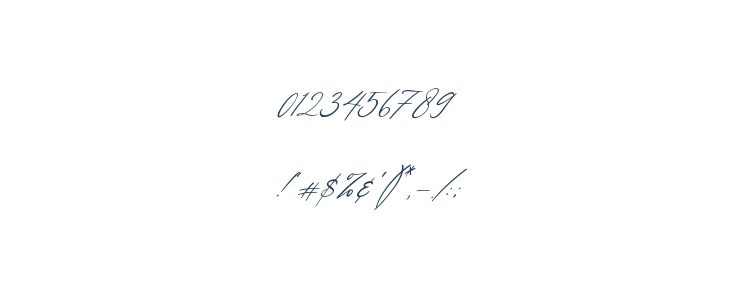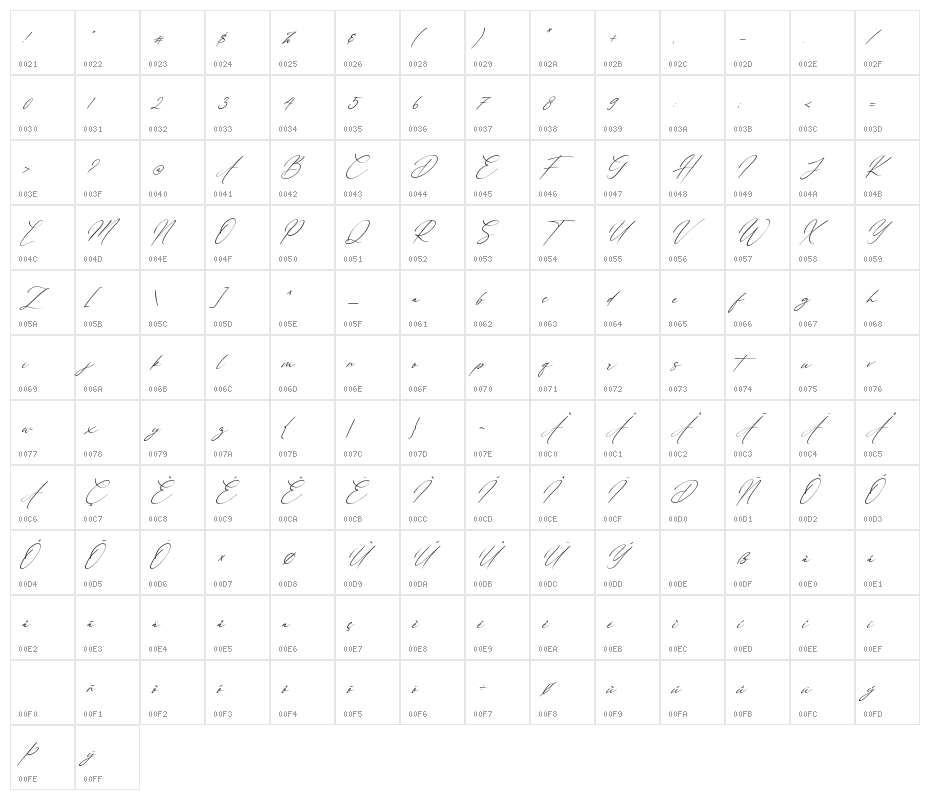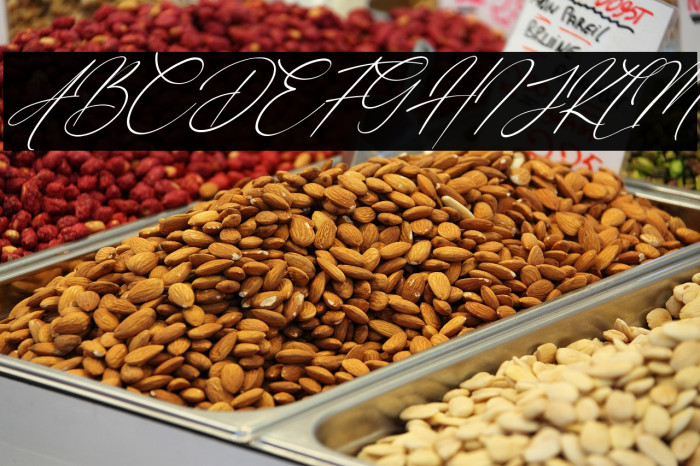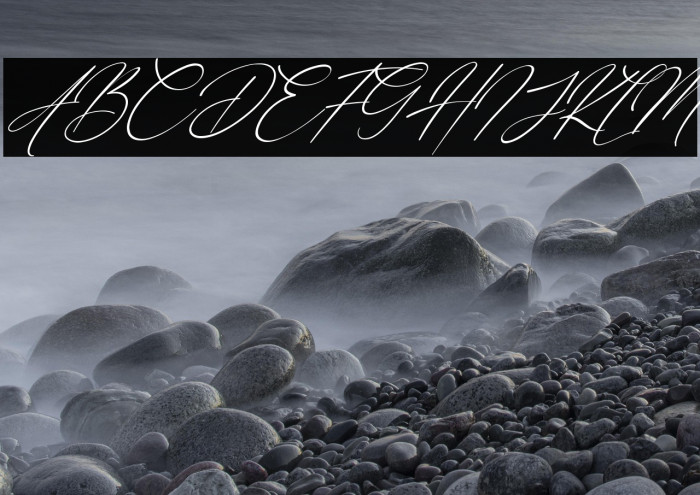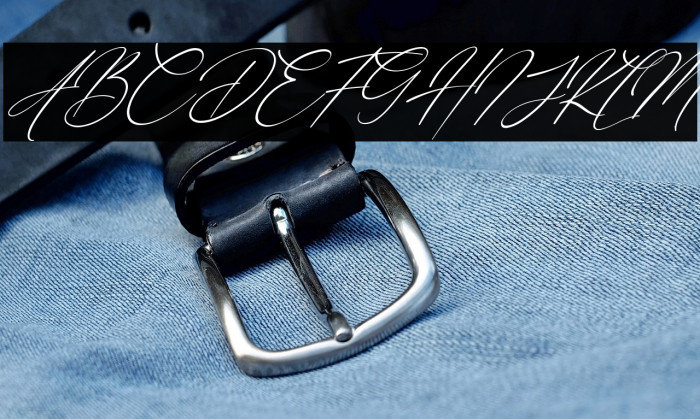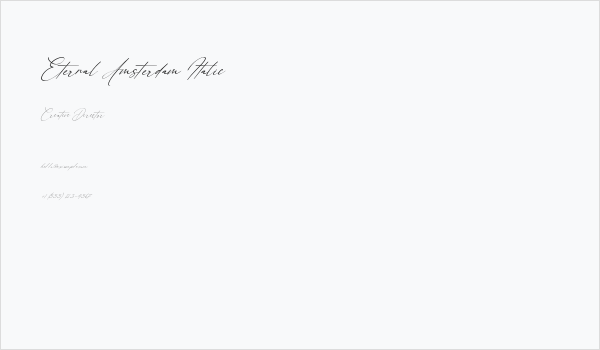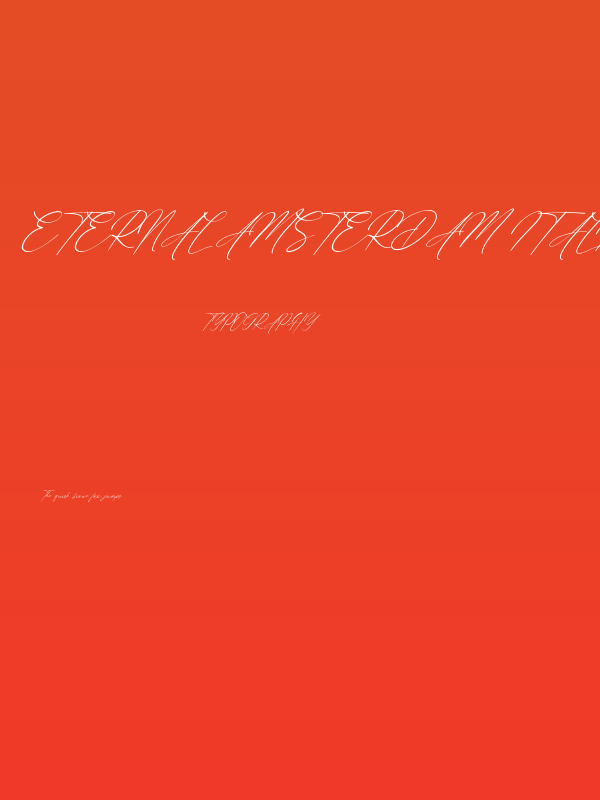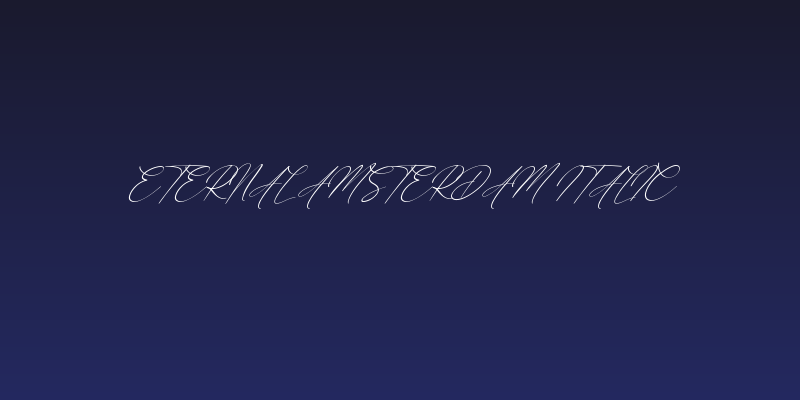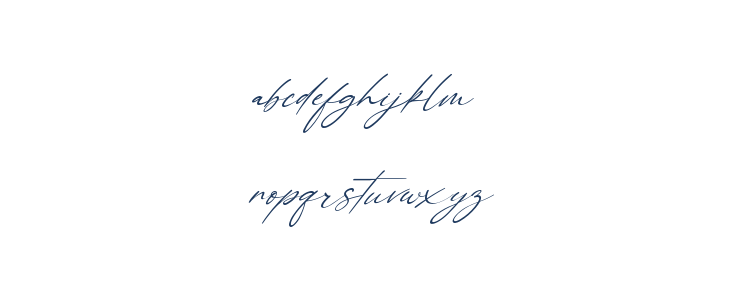
Eternal Amsterdam Italic Font
Eternal Amsterdam Italic Description
This elegant script font exudes a sense of sophistication and fluidity, characterized by its graceful, flowing strokes and delicate curves. The letters are connected in a seamless manner, creating a harmonious and continuous line that mimics the fluidity of handwriting. The font's italic style adds a dynamic and expressive touch, enhancing its overall aesthetic appeal. The uppercase letters are bold and prominent, while the lowercase letters maintain a consistent and balanced appearance. The numerals and special characters are crafted with the same attention to detail, ensuring a cohesive look across all elements. This font is perfect for projects that require a touch of elegance and refinement.